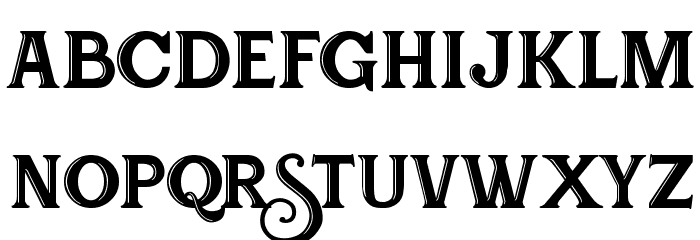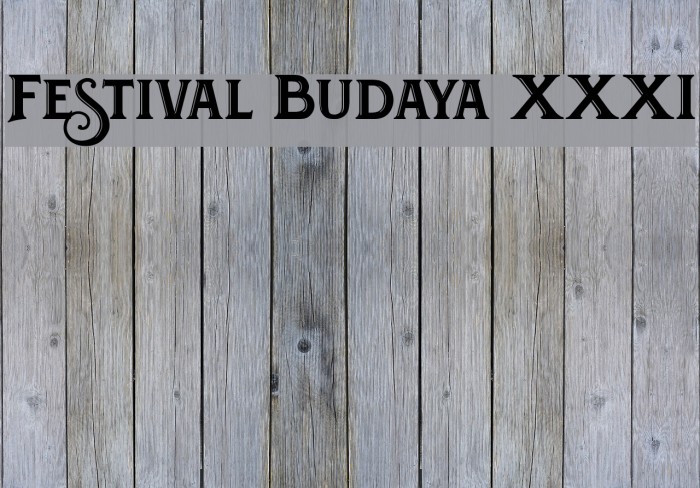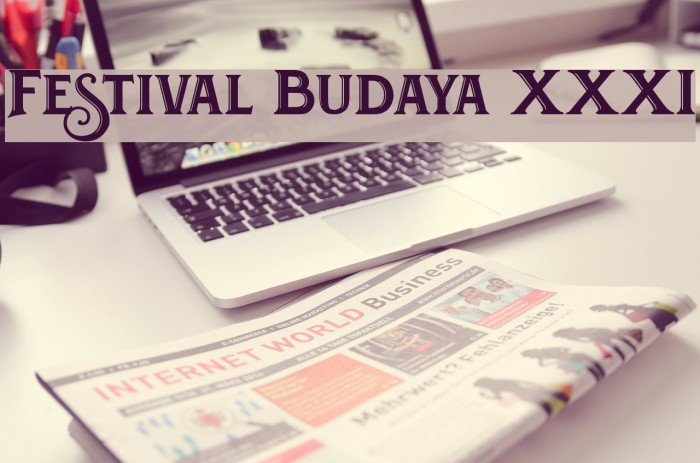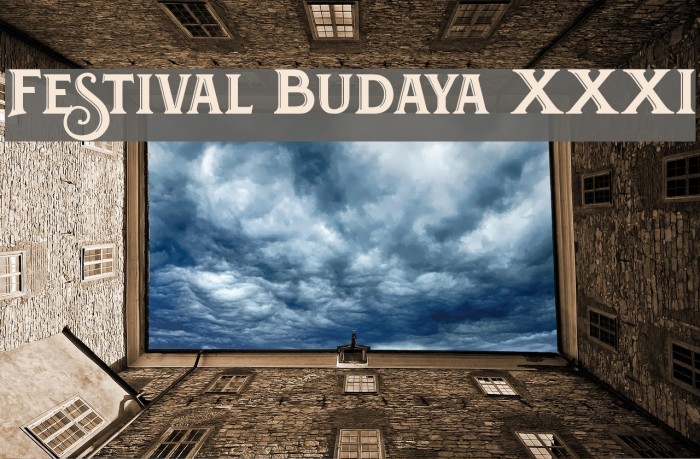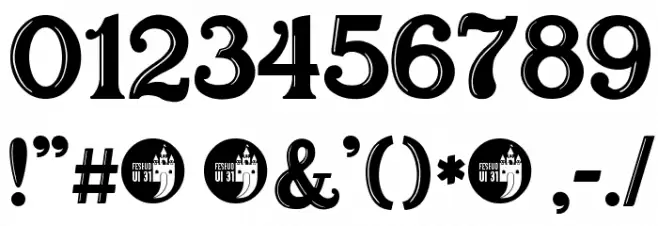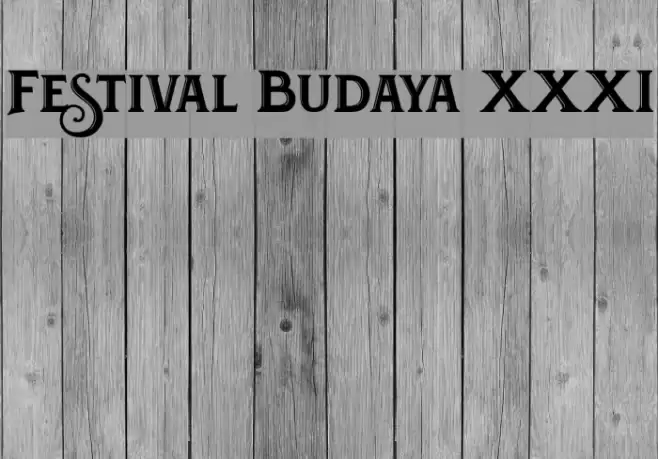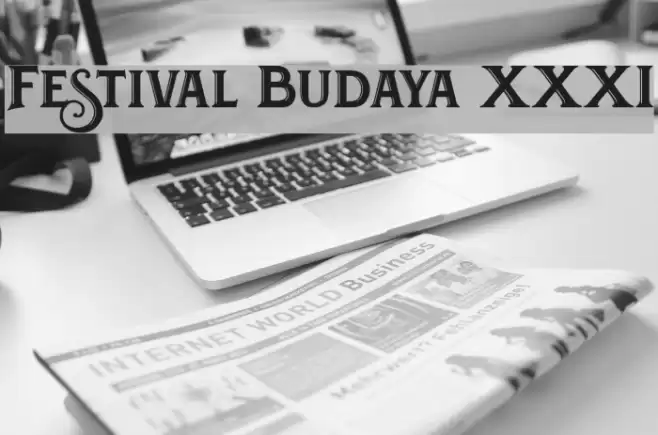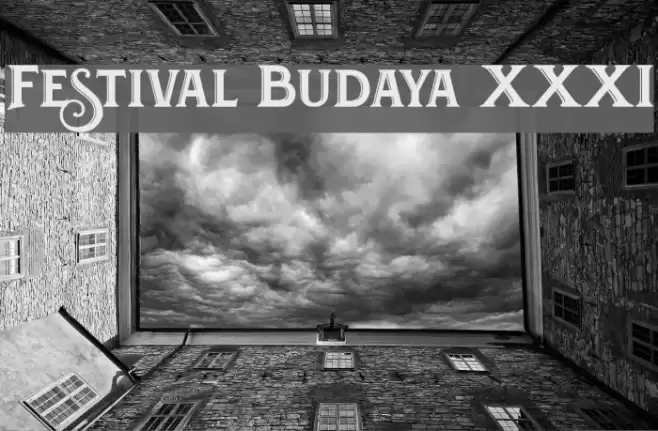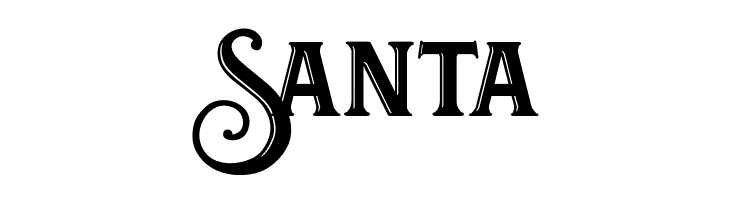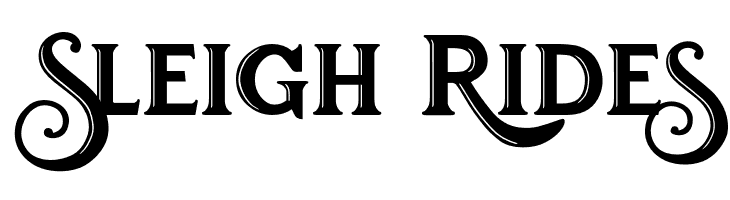
Festival Budaya XXXI Font
This font features a bold and decorative style, characterized by its thick, prominent strokes and intricate detailing, particularly noticeable in the capital letters. The design includes unique flourishes and serifs that give it a vintage and ornate appearance. The numbers and special characters maintain this decorative theme, with consistent stroke weight and embellishments. The font's overall aesthetic is reminiscent of traditional signage or poster typography, making it stand out with its elaborate and eye-catching design.
A bold, decorative font with vintage flair and intricate detailing.
- Proposed Projects: Ideal for use in event posters, branding for cultural festivals, vintage-themed designs, and decorative signage.
- Overall Style: Vintage, Decorative